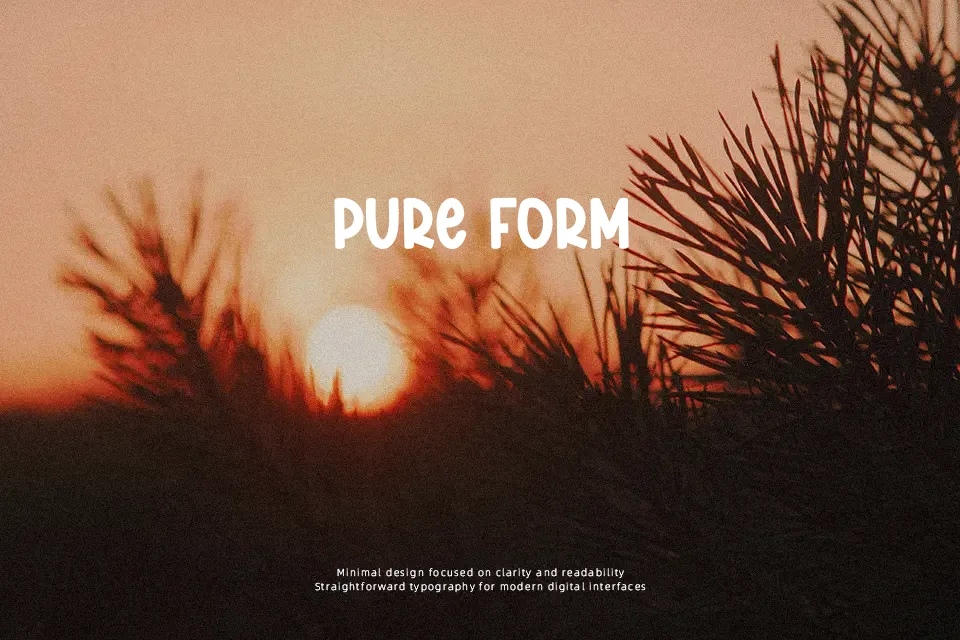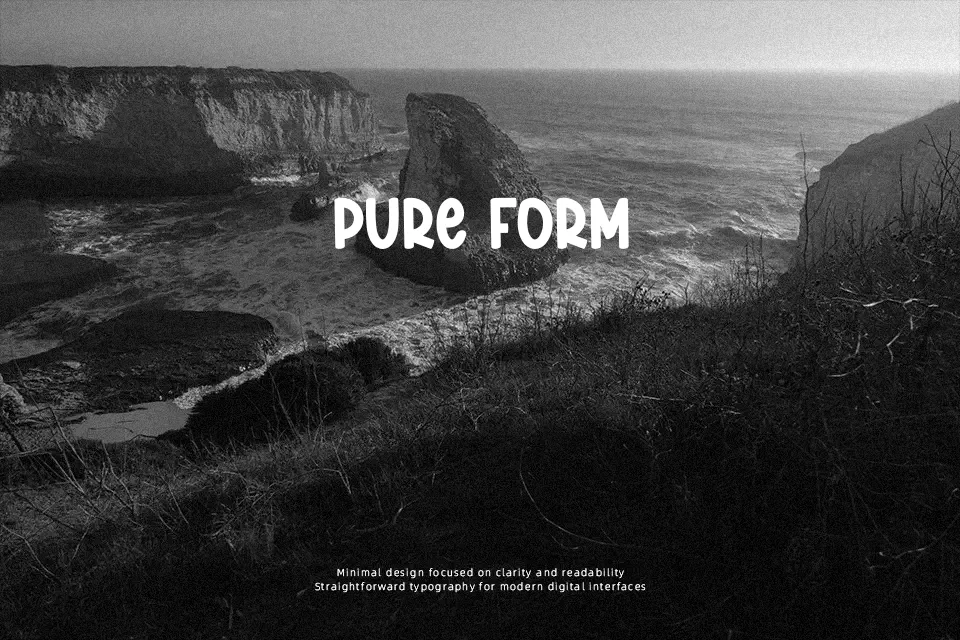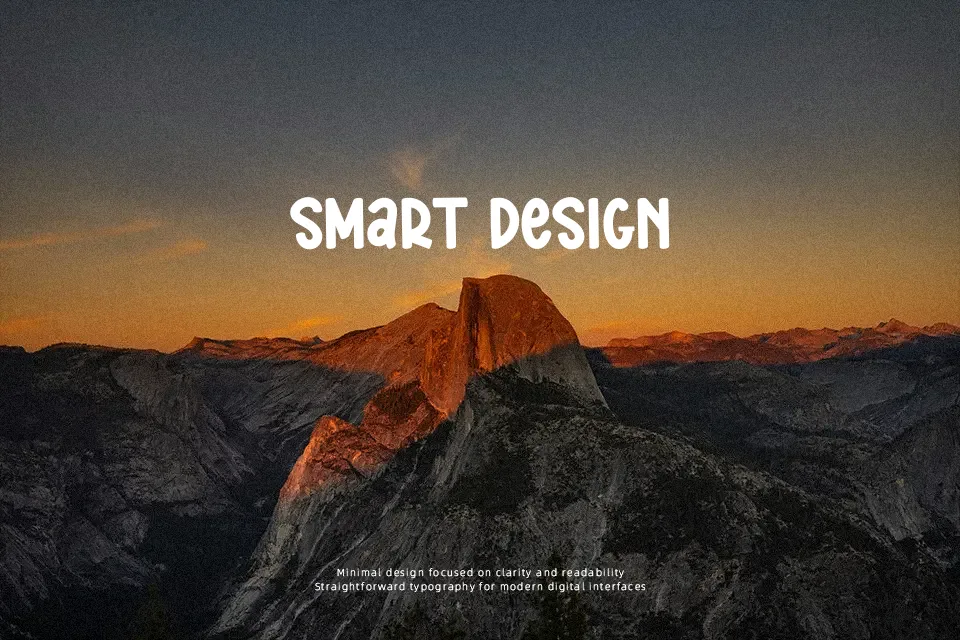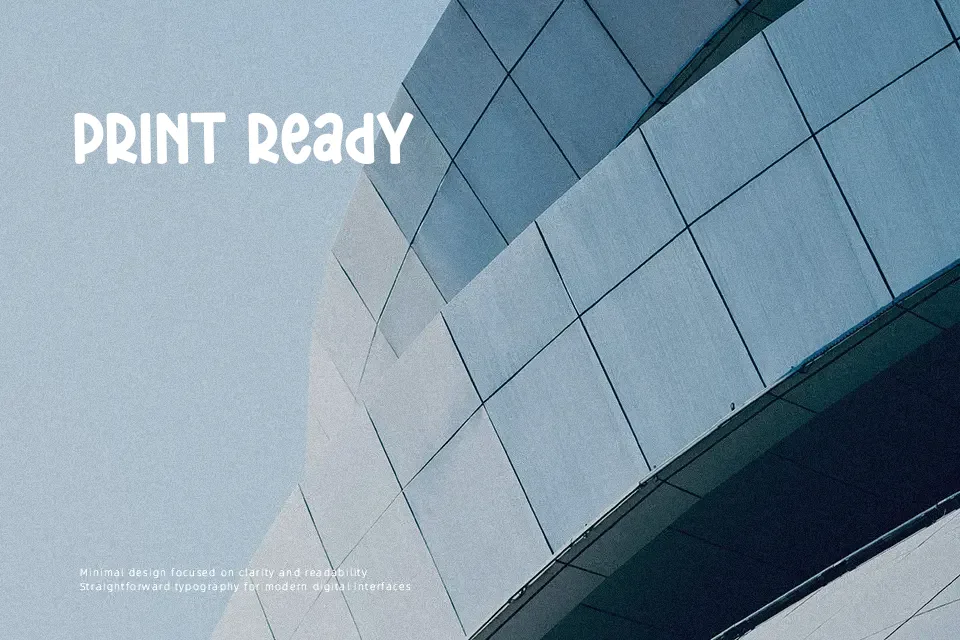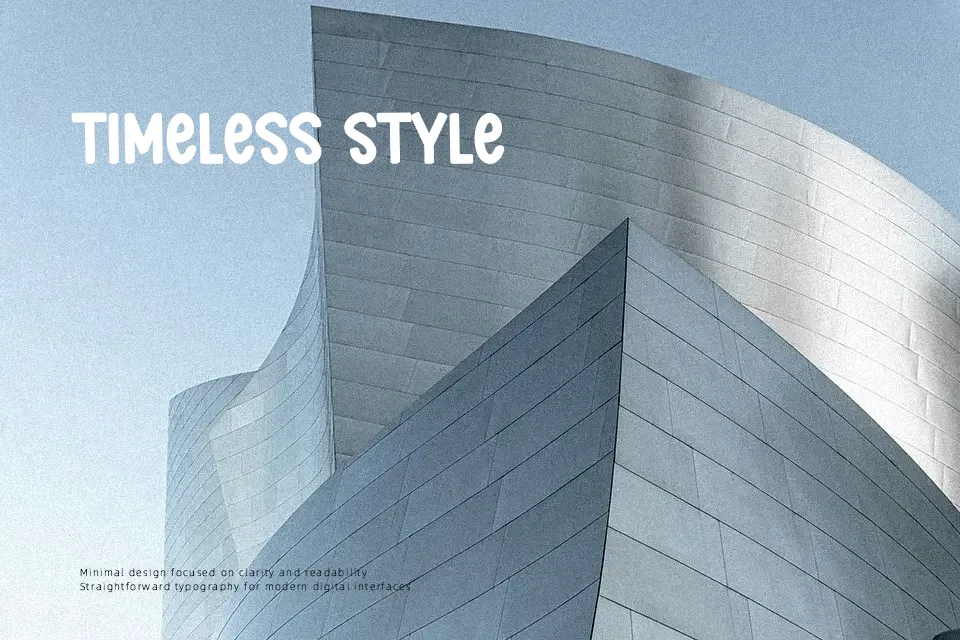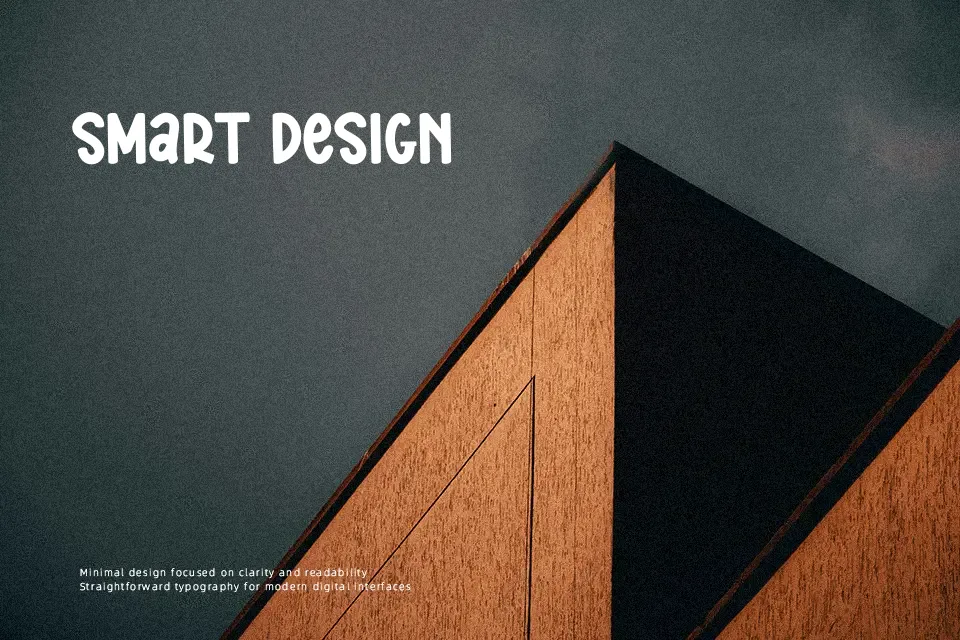
Smooth Cheese Font
Smooth Cheese Font uses chunky, rounded forms with uneven contours and a lively cartoon-display rhythm. Its broad strokes and soft, inflated proportions make individual letters stand out clearly in large words, while the compact visual spacing keeps short headlines together. The typeface reads best at display sizes, where its playful silhouette is easy to recognize and its character shapes have room to breathe. It is a practical choice for kid-focused packaging, party graphics, and casual promotional artwork. In smaller text or longer passages, the decorative forms can reduce reading comfort.
Best For: children’s event posters,playful product labels,kids’ packaging,social media headlines
Perfect for headline, kids, and packaging, with a creative and cartoon style.